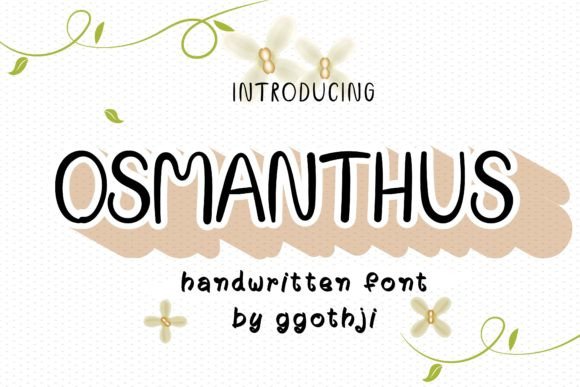
Introducing Osmanthus Font, the exquisite handwritten typeface that adds a touch of warmth and charm to your digital designs. Step into a world of boundless creativity with this script font, meticulously crafted to bring life to your T-shirt texts, planners, journals, wedding invitations, and a myriad of other projects. Designed by the skilled hands of GGothji, Osmanthus Font embodies a friendly and enchanting style that captivates hearts.
Dive into a realm of endless possibilities with Osmanthus Font. Create stunning T-shirt designs that speak volumes about your unique style. Let your journal pages dance with elegance as you pen down your thoughts and memories. Craft enchanting wedding invitations that capture the essence of love and joy. Unleash your creativity and design child-related projects that spark laughter and ignite imagination. Make your social media posts pop with vibrant and captivating designs.
Osmanthus Font is the ultimate choice for designers seeking a font that exudes friendliness and relatability. Whether you're a seasoned professional or just starting your creative journey, this font will become your trusted companion. Its lovely style adds a personal touch to every project, making it stand out from the crowd.